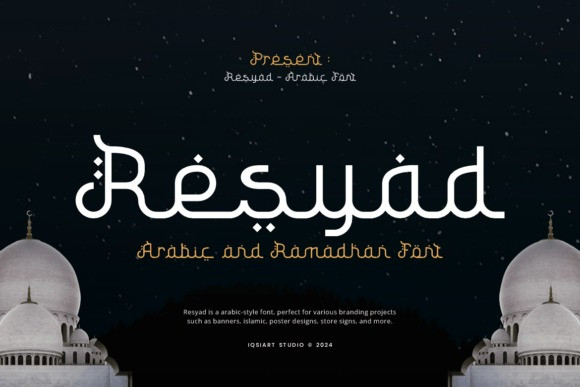
Resyad Font
Designer: IqsiartStudio
Resyad Font is an arabic and authentic decorative typeface that suits a variety of design needs. Whether you’re looking for fonts for Instagram or calligraphy scripts for DIY projects, this font will turn any creative idea into a true piece of art!